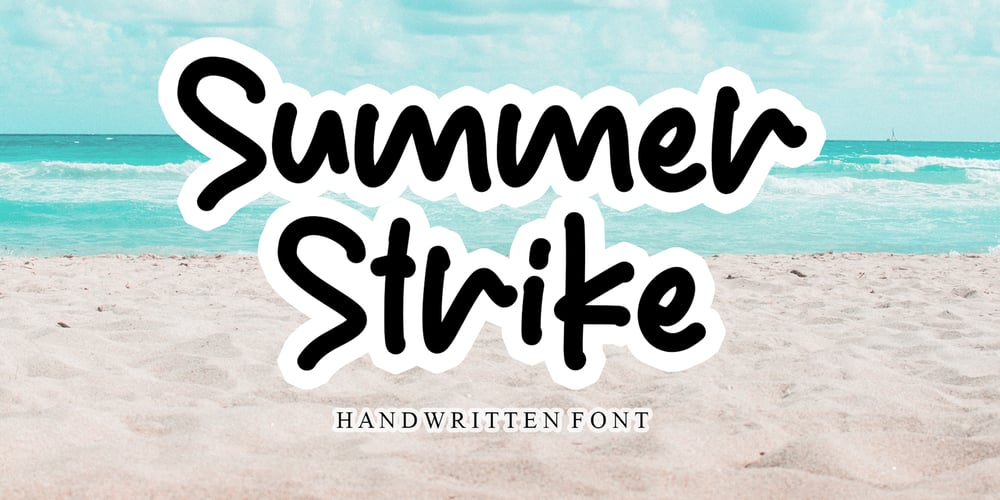
Summer Strike Font Family was designed by Ahmad Afandi and published by Letterafandi Studio. Summer Strike contains 2 styles and family package options. Summer Strike is a simple, thin lettered and flowing handwritten font. This adaptable font will look great on a variety of design ideas. It will add a fun and friendly touch to each of your projects!